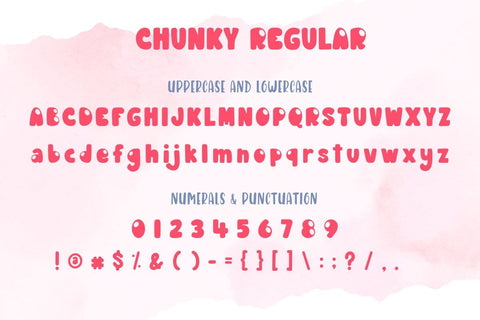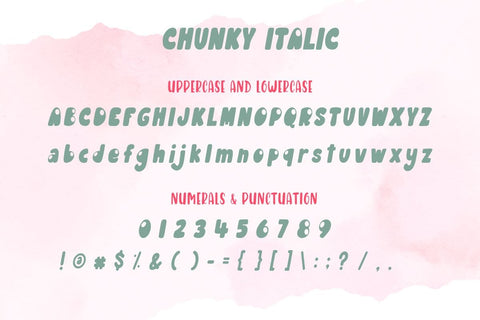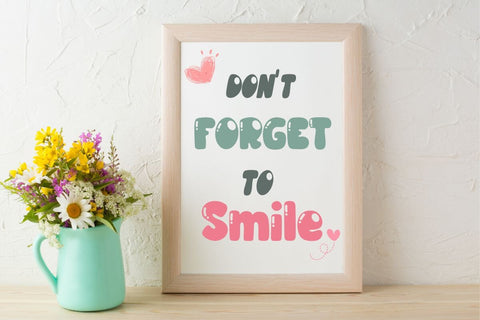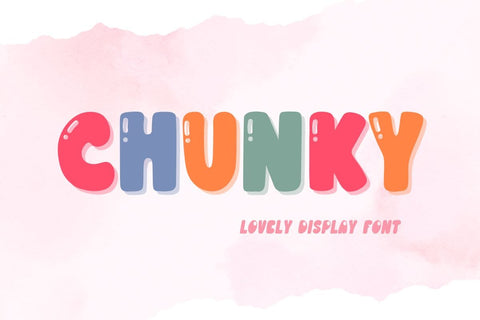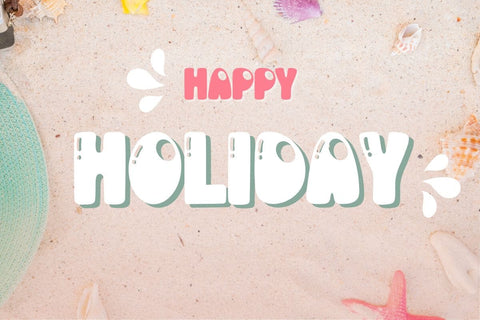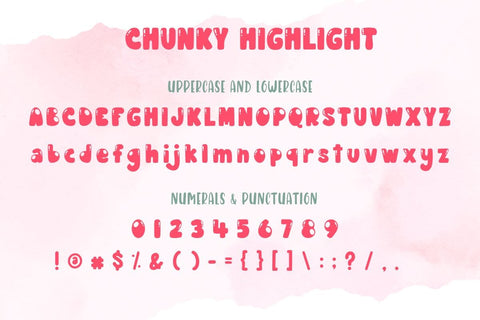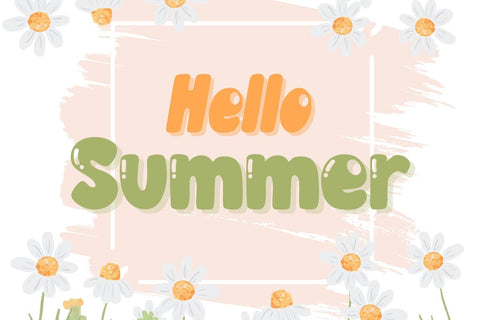
Chunky Font - Display Font
Chunky Font is cute handwriting and display Font. You can use it to create Valentine's cards, wedding invitations, beautiful stationary art, social media posts, and much more!